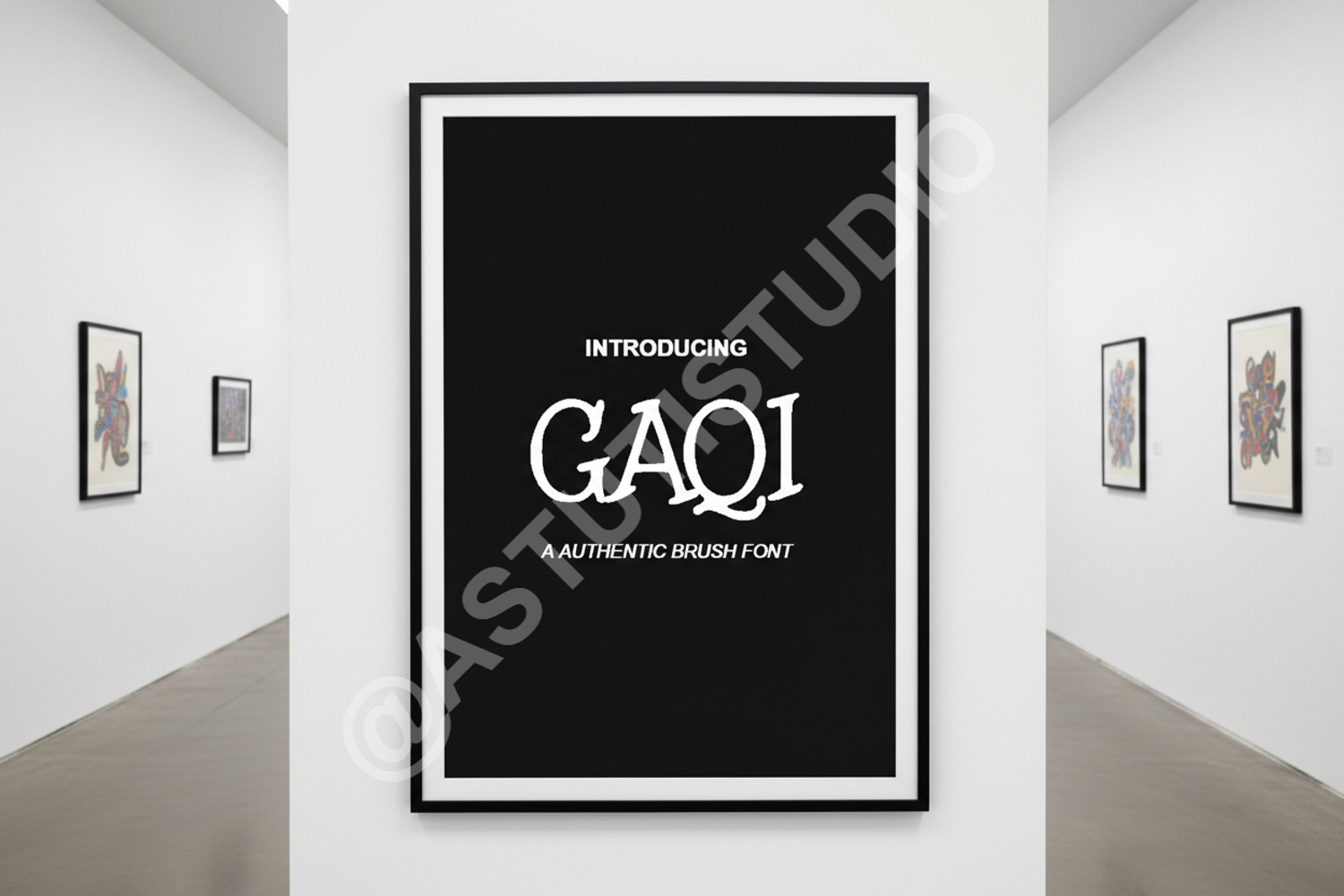
Gaqi - Sophisticated Modern Serif Typeface
Gaqi
Elevate your creative projects with Gaqi, a premium serif typeface designed to bridge the gap between contemporary minimalism and timeless elegance. Meticulously crafted with a focus on balance and high-end aesthetics, Gaqi provides a sophisticated touch that commands attention without being overwhelming. Whether you are working on a luxury brand or a clean editorial layout, this font offers the versatility and professional polish required for top-tier design work.
- Branding and Visual Identity: Develop memorable logos and corporate identities that exude luxury and professionalism.
- Wedding Stationery: Create stunning invitations, save-the-date cards, and event programs with an elegant flair.
- Editorial Design: Perfectly suited for magazine headers, book covers, and high-fashion layouts.
- Digital Marketing: Enhance your social media presence and website banners with a clean, modern look.
- Product Packaging: Add a premium feel to cosmetics, jewelry, and high-end lifestyle product labels.